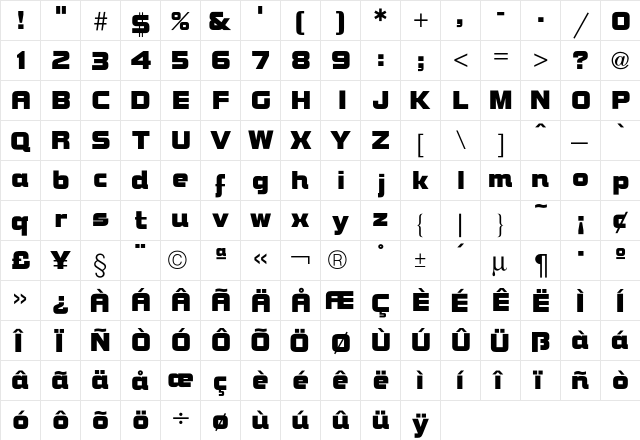
Bolt BoldICG
Design Context for Bolt Typeface
Bolt is a composed and adaptable typeface that performs quietly and consistently across a wide range of design contexts. The heavy weight commands attention and anchors typographic hierarchies.
Pro Tip: Use Bolt in both headline and body roles to test its range before committing to a single application.